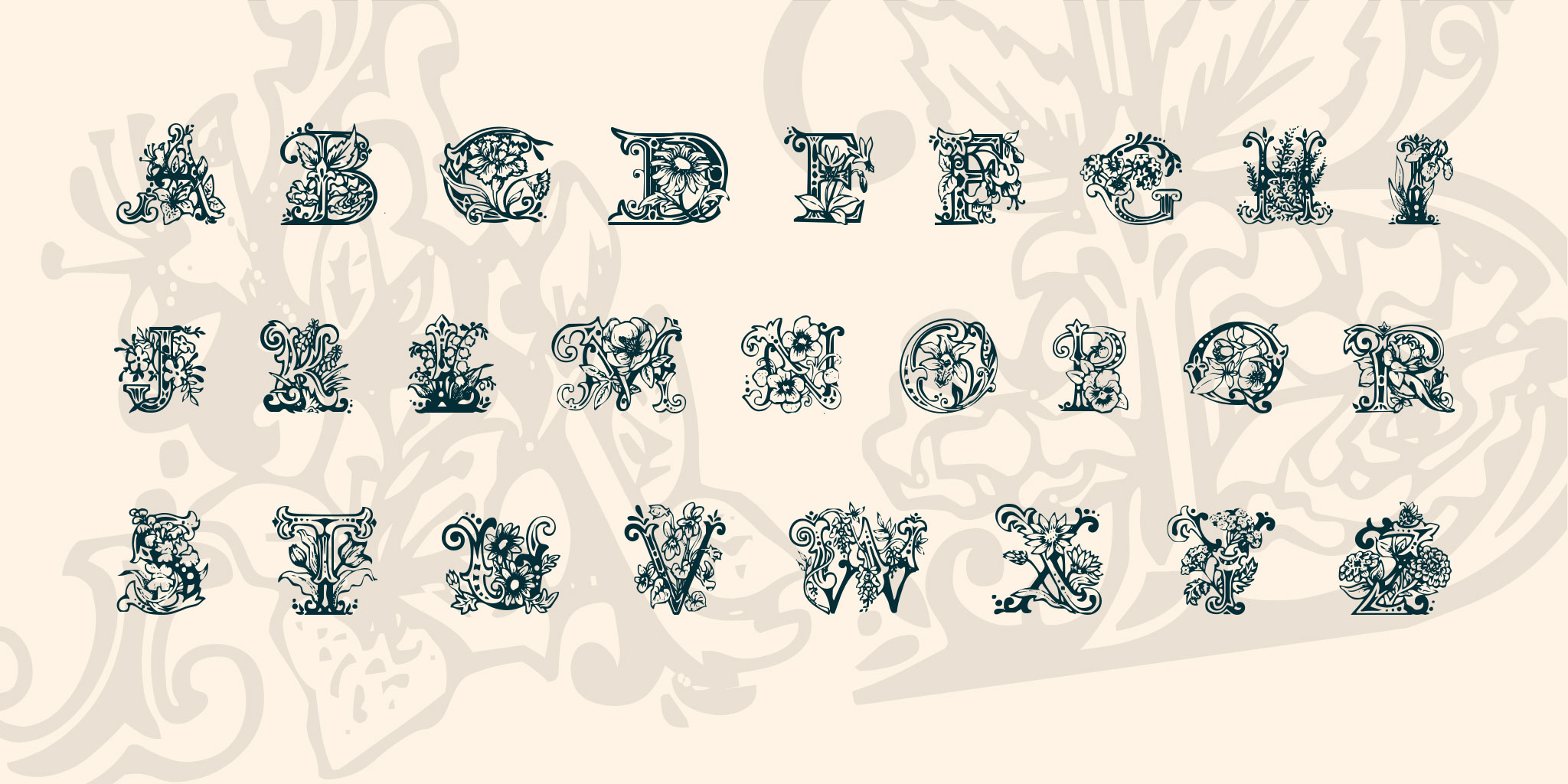
30. Lime Blossom Caps Font
Lime Blossom Caps is a delicate all-caps font with very intricate floral embelishments. It's one of the most detailed designs on our list of tattoo fonts, and could also work well for the first letters of chapters in a book.
41. Canterbury
This old English-style font is one of many designs by Dieter Steffman. Created in 2003, the set includes both upper and lower case letters, special characters and numbers 0-9. This typeface is also free to use for both commercial and non-commercial purposes.
42. Tribal
Tribal tattoos are still extremely popular, so if that's the design you're going for, check out this version of tribal type by Apostrophic Lab. The free font includes a full set of upper and lower case letters, numbers and a selection of special characters. It is also free for use in both commercial and non-commercial projects.